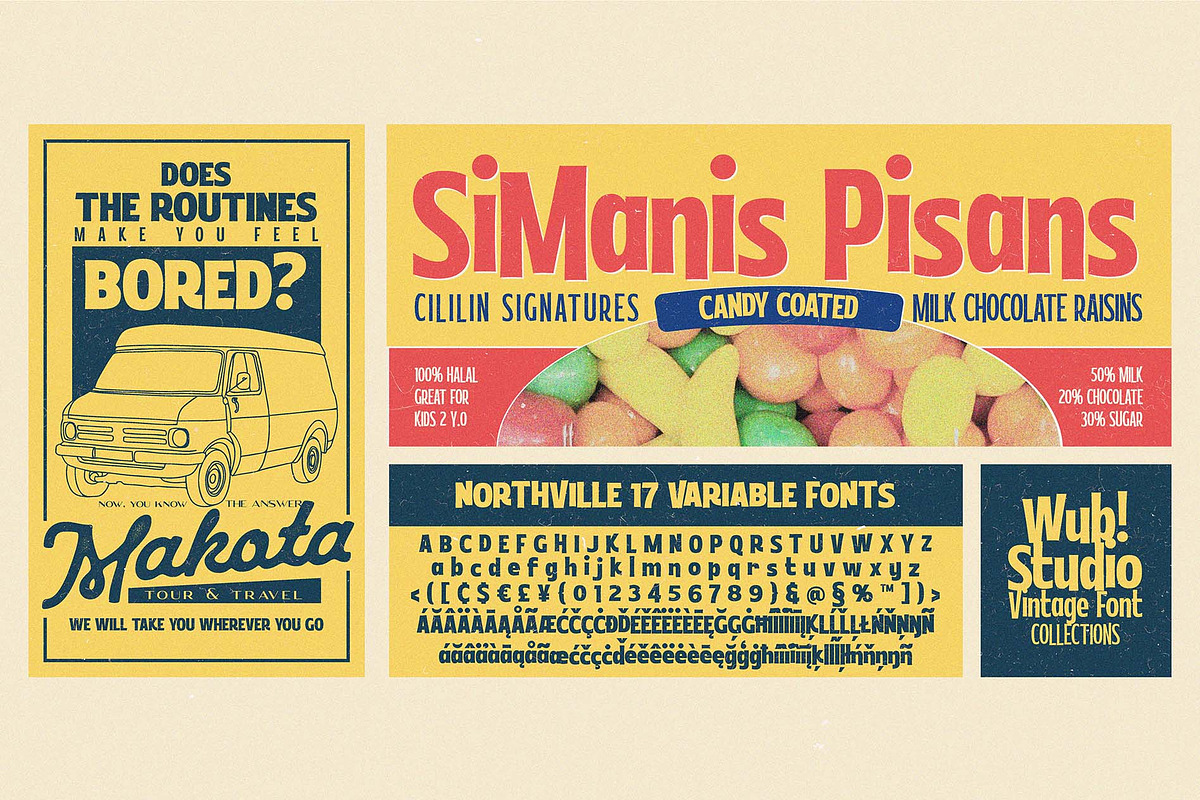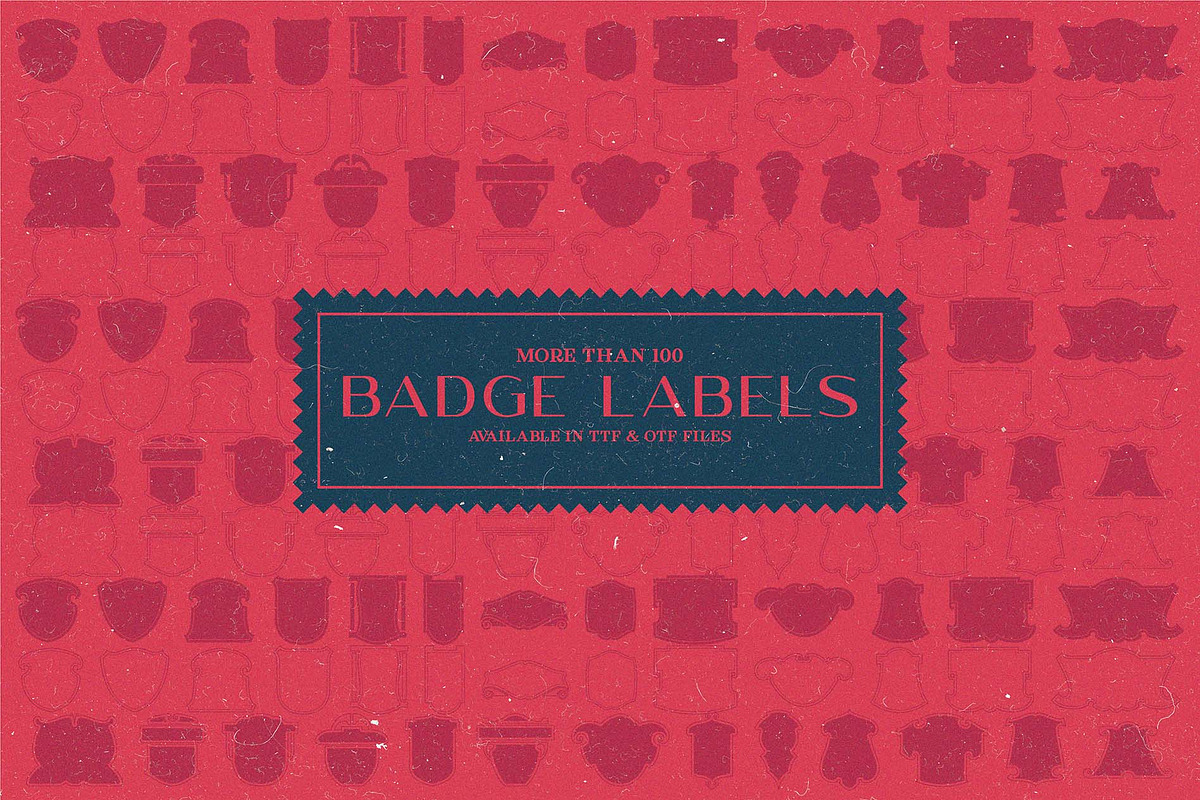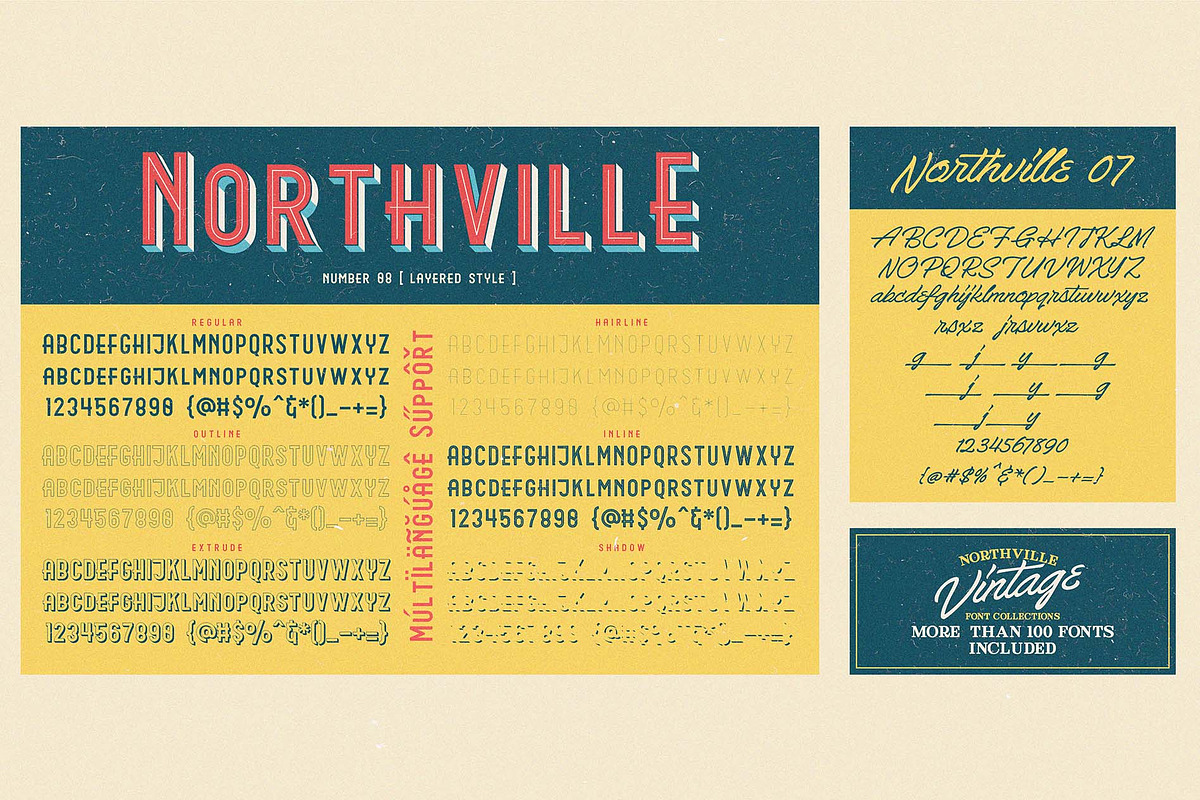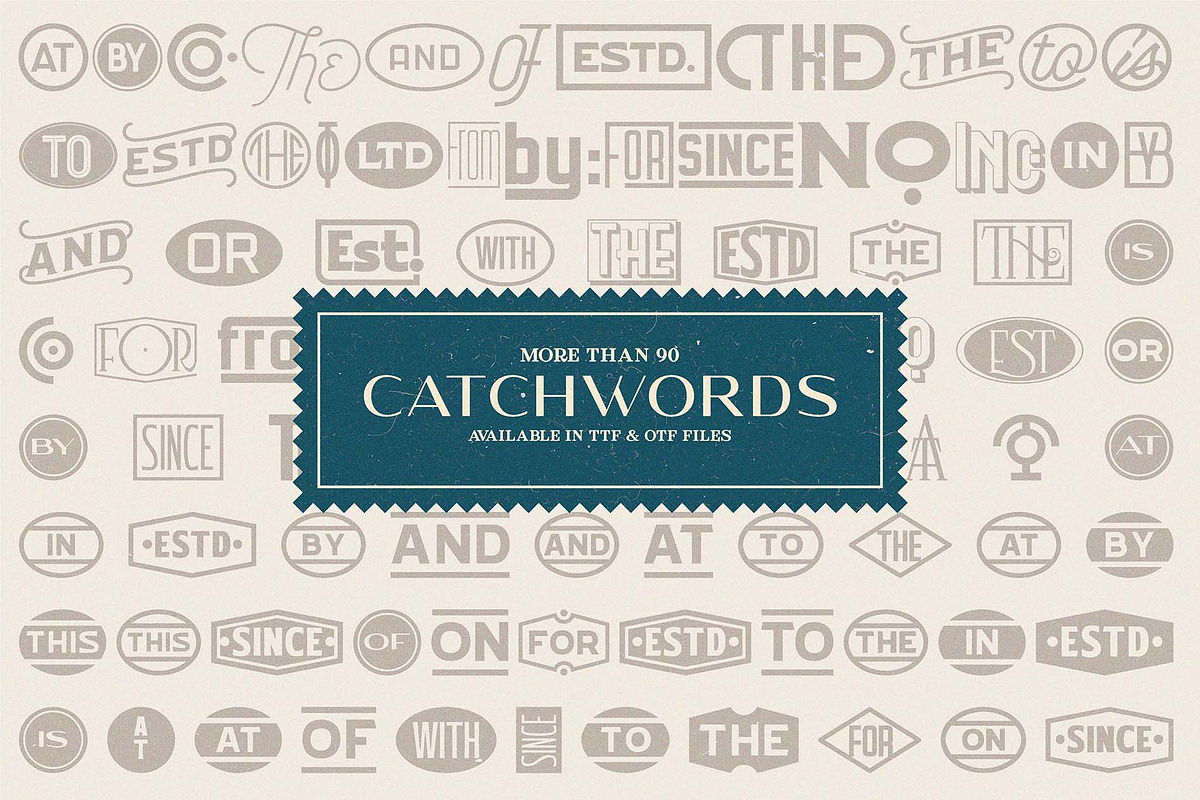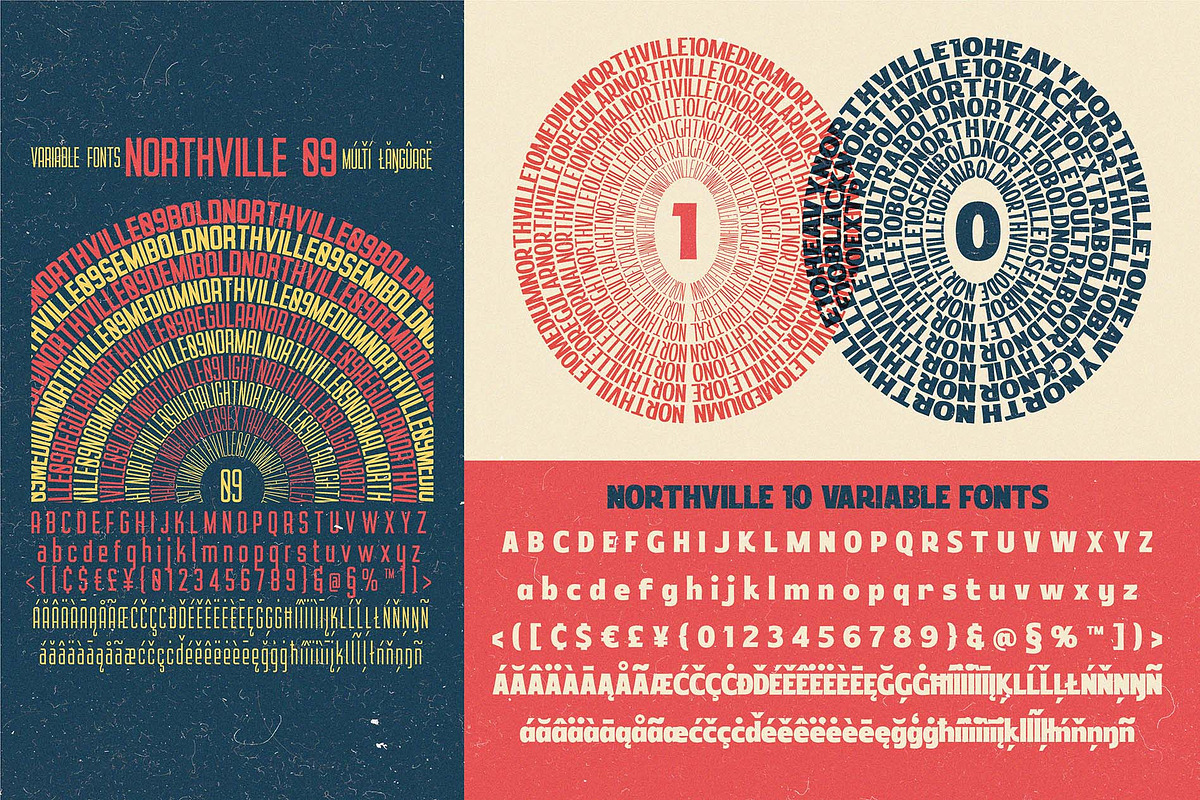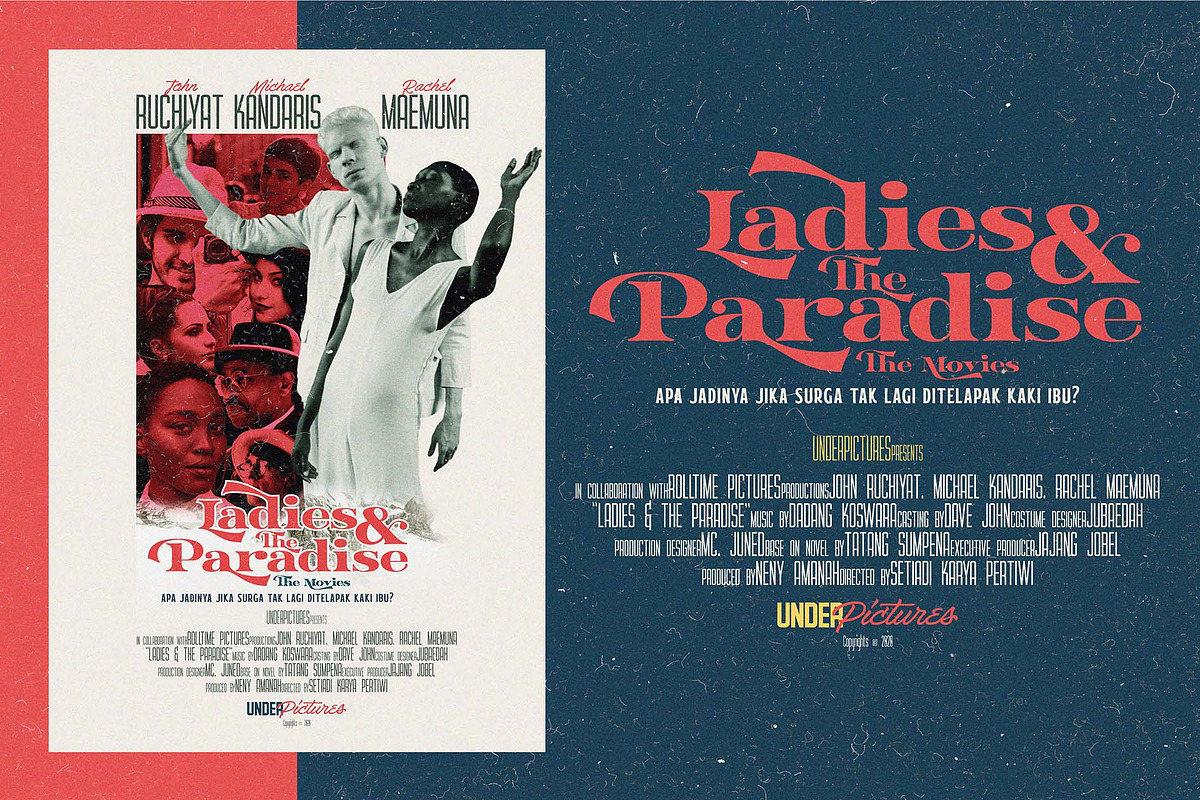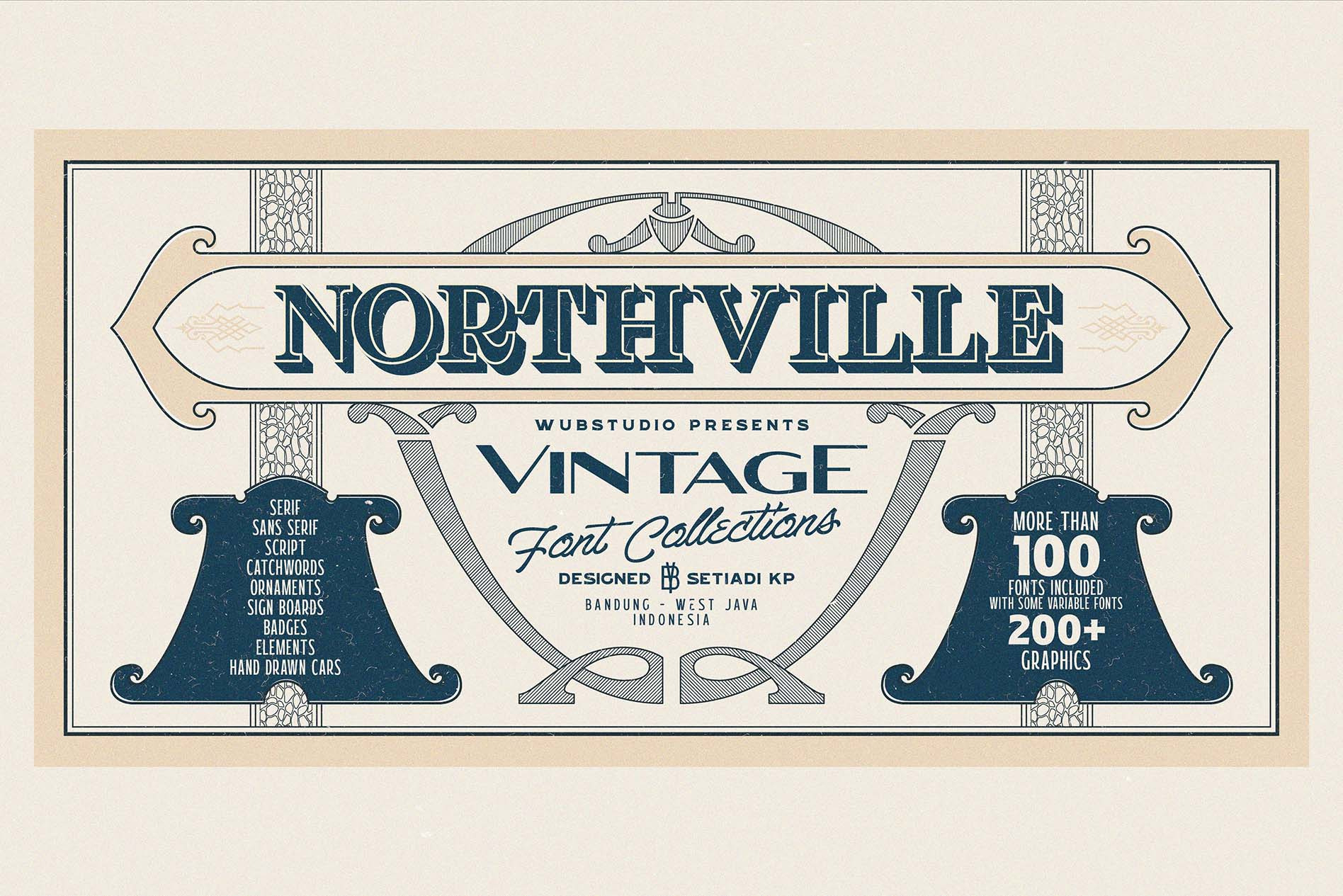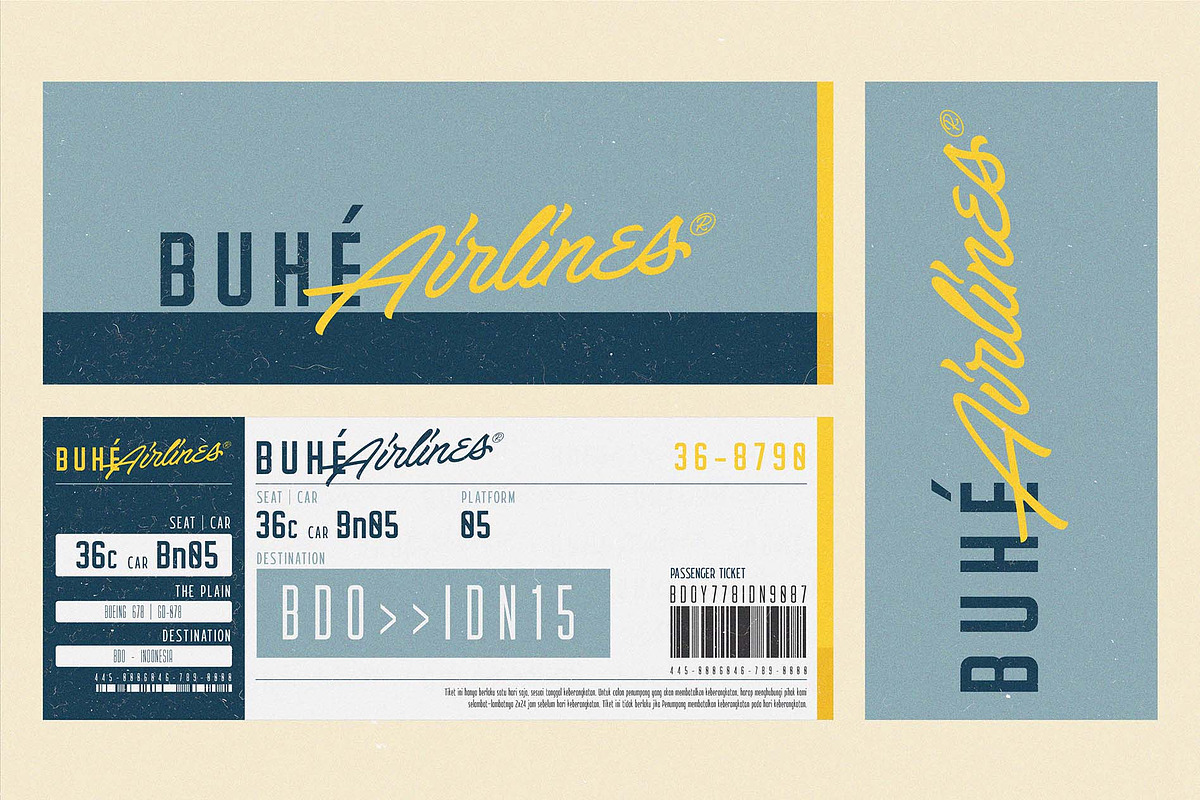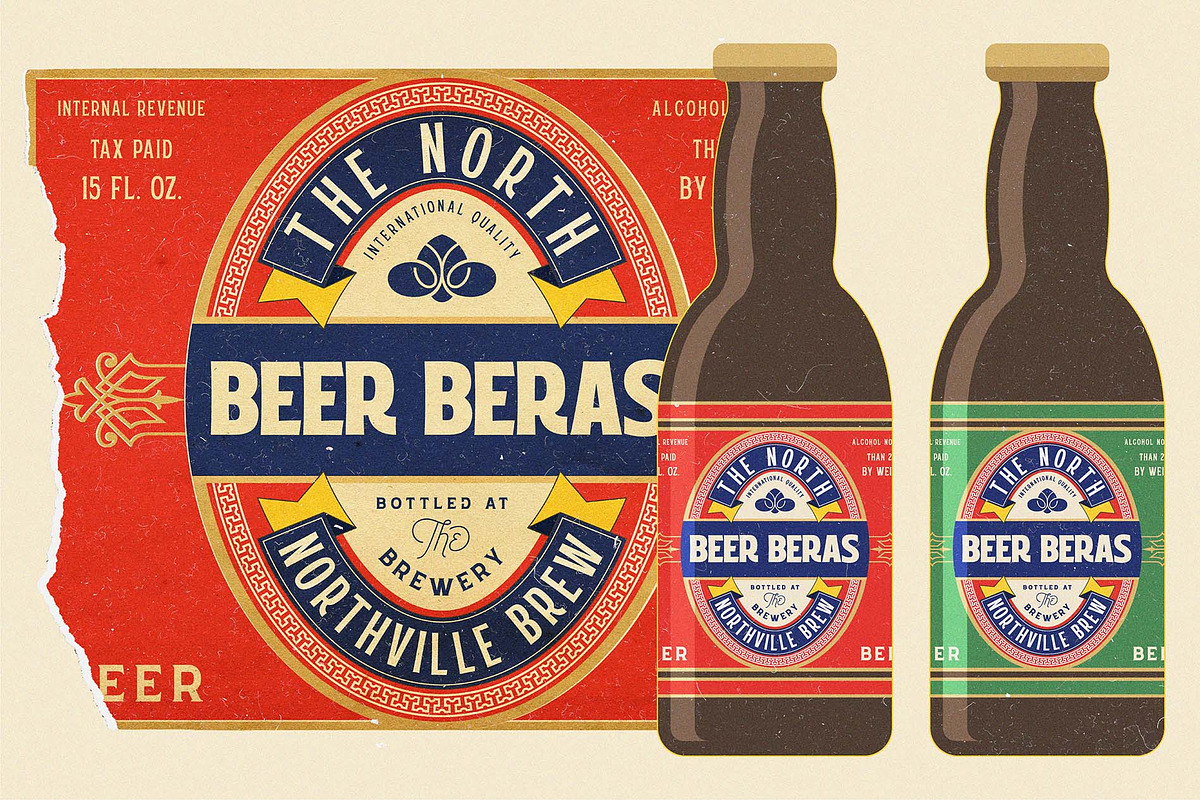
Northville Vintage Font Collections
Introducing Northville Vintage Font Collections. Is a very large font package. There are more than 100 Vintage fonts, and also more than 200 Graphic Assets. In this package, there are several Variable Fonts, and also some Layered Fonts.
Northville Vintage Font Collections is a complete package for Vintage-themed Design needs. Even though this is Vintage, it can also be applied to Modern Design. You can see in the preview, there are several font applications in modern designs. This package consists of several font types: Serif, San Serif, and Script. To see the details, you can download the Detailed Guide on the following link:
This font was inspired by Sign Boards in the early 1900s. Which, hotels, cafes, workshops and motels at that time used a sign board that was very unique and attractive. The form is combined with a very firm Typography. Therefore, this Northville Vintage Font Collections is a font display package that is well worth buying.